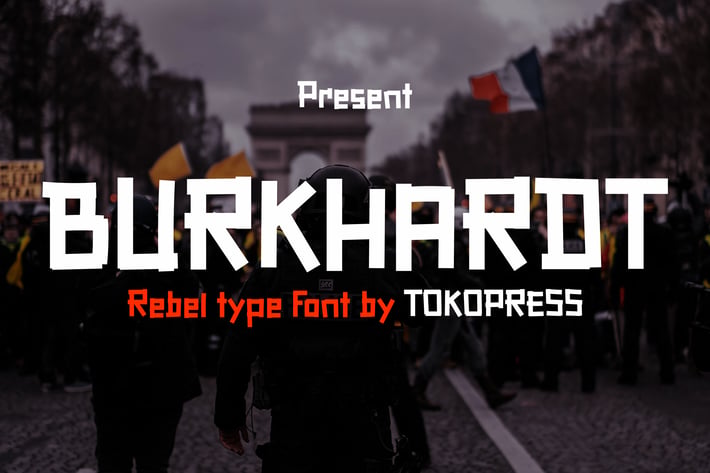
Burkhardt - Brush font
Burkhardt - Brush Font
Burkhardt is a protest-style display typeface with angular letterforms, militant energy, and powerful contrast—built for movements that demand attention. With its rigid geometry, squared corners, and authoritative rhythm, this font is designed to stand tall in revolution-themed layouts. The strong vertical tension and tight spacing add an intense voice, ideal for social statements and rally cries.
Perfect for revolution posters, activist branding, protest flyers, and editorial layouts, Burkhardt commands space and emotion. Its bold stance reflects collective action and urgency, ideal for political campaigns, documentaries, cause-driven merchandise, or underground music scenes. If you’re creating visuals that challenge norms, this font brings the visual weight to match your message.
Why Burkhardt Delivers Visual Power :
- Revolution-Driven Energy: Built for loud messaging in public or digital protest spaces
- Militant Letter Design: Angular cuts, strong edges, and serious tone
- High Visibility: Sharp contrast ensures maximum readability on posters and backdrops
- Emotionally Charged Aesthetic: Supports themes of power, unity, and disruption
- Multi-Context Ready: From urban fashion and event graphics to political zines and awareness campaigns